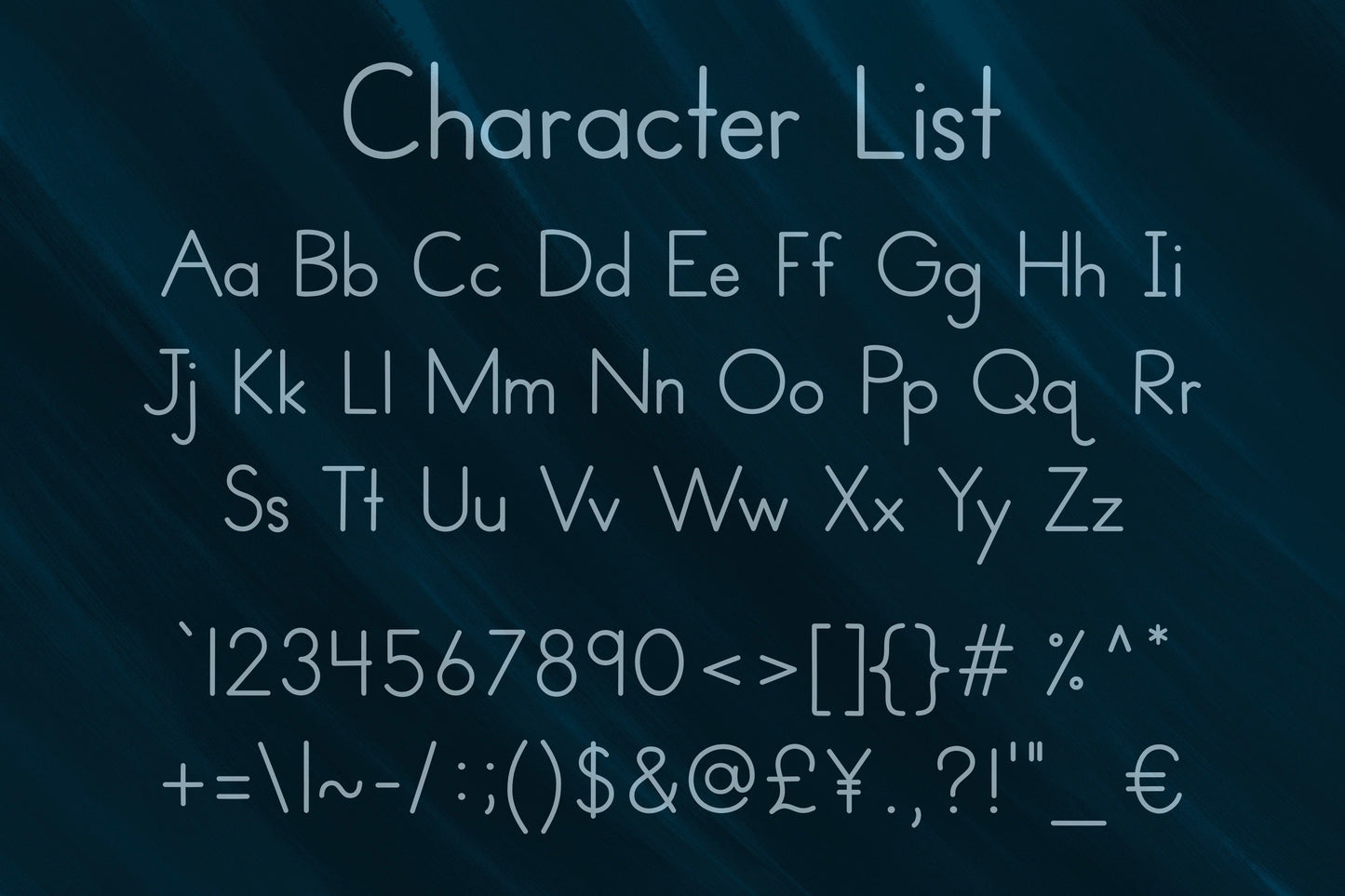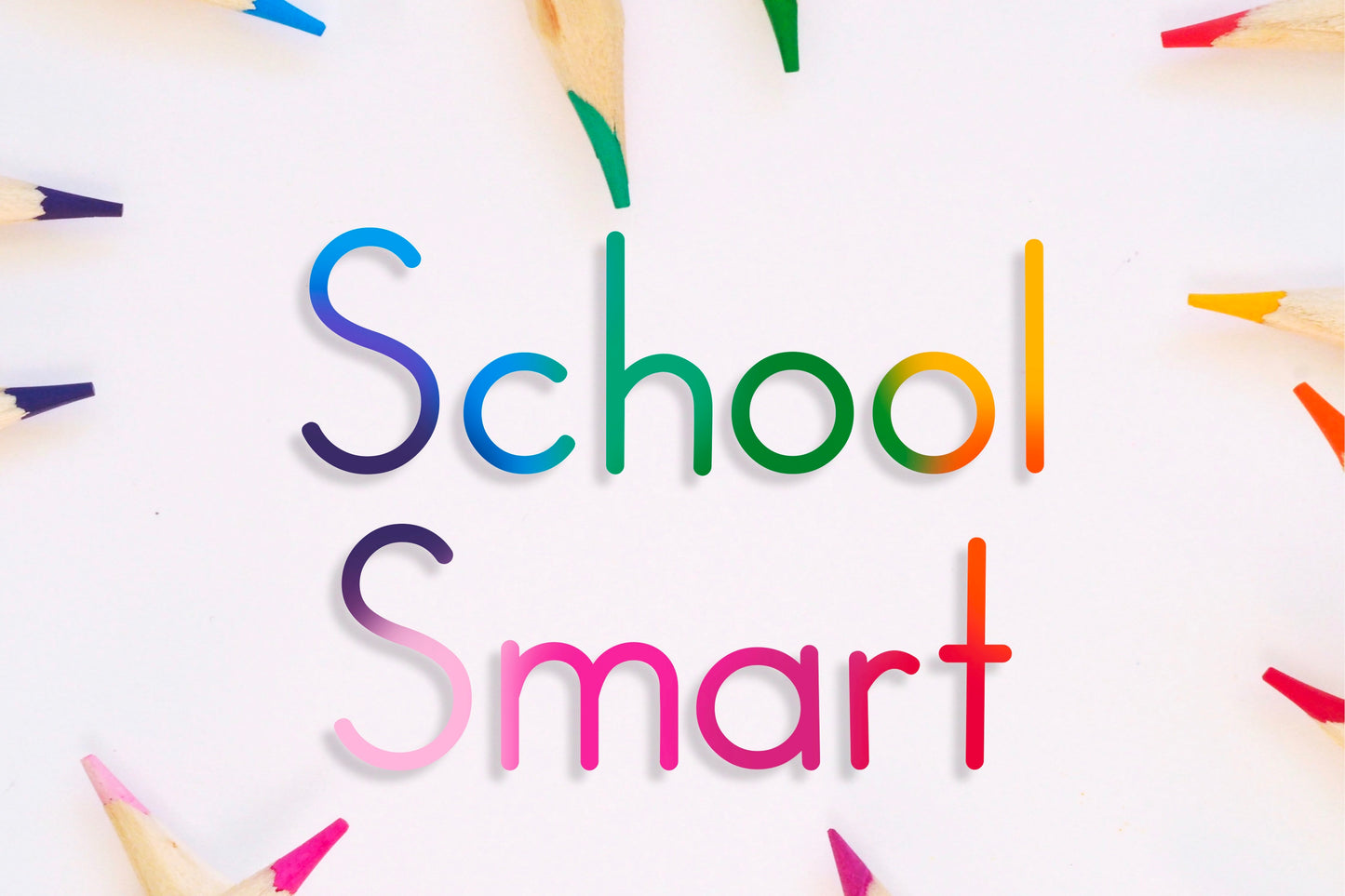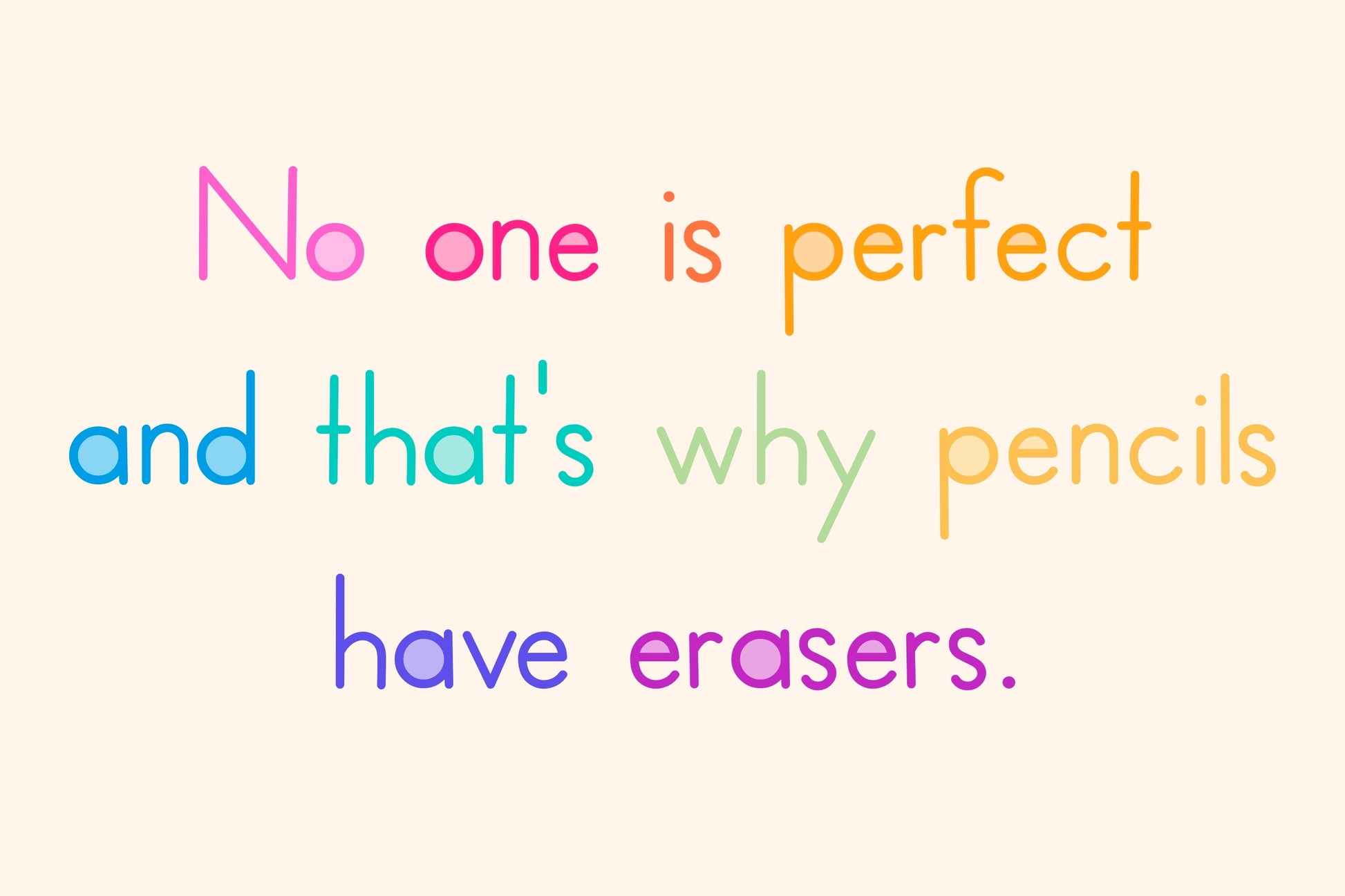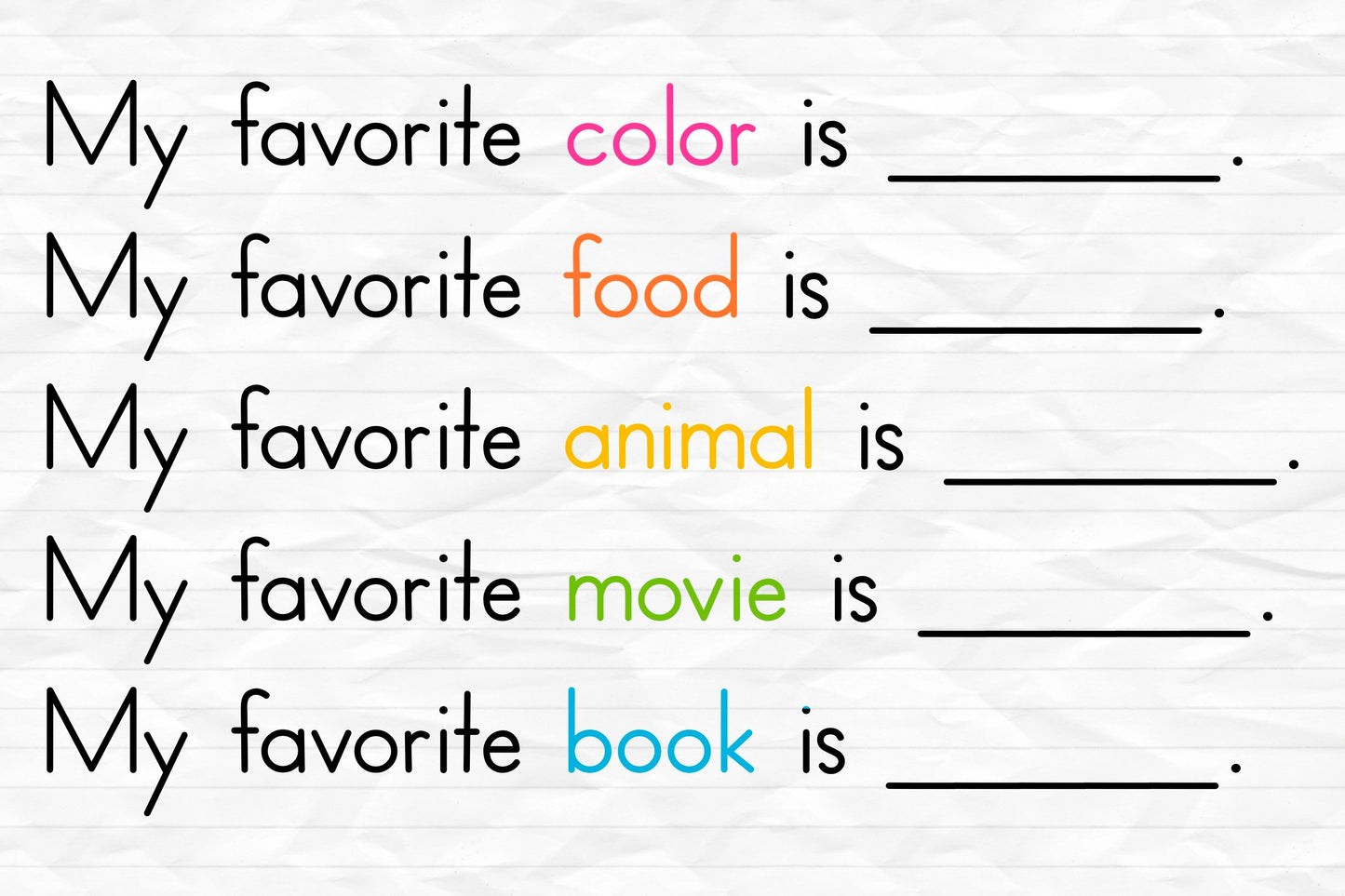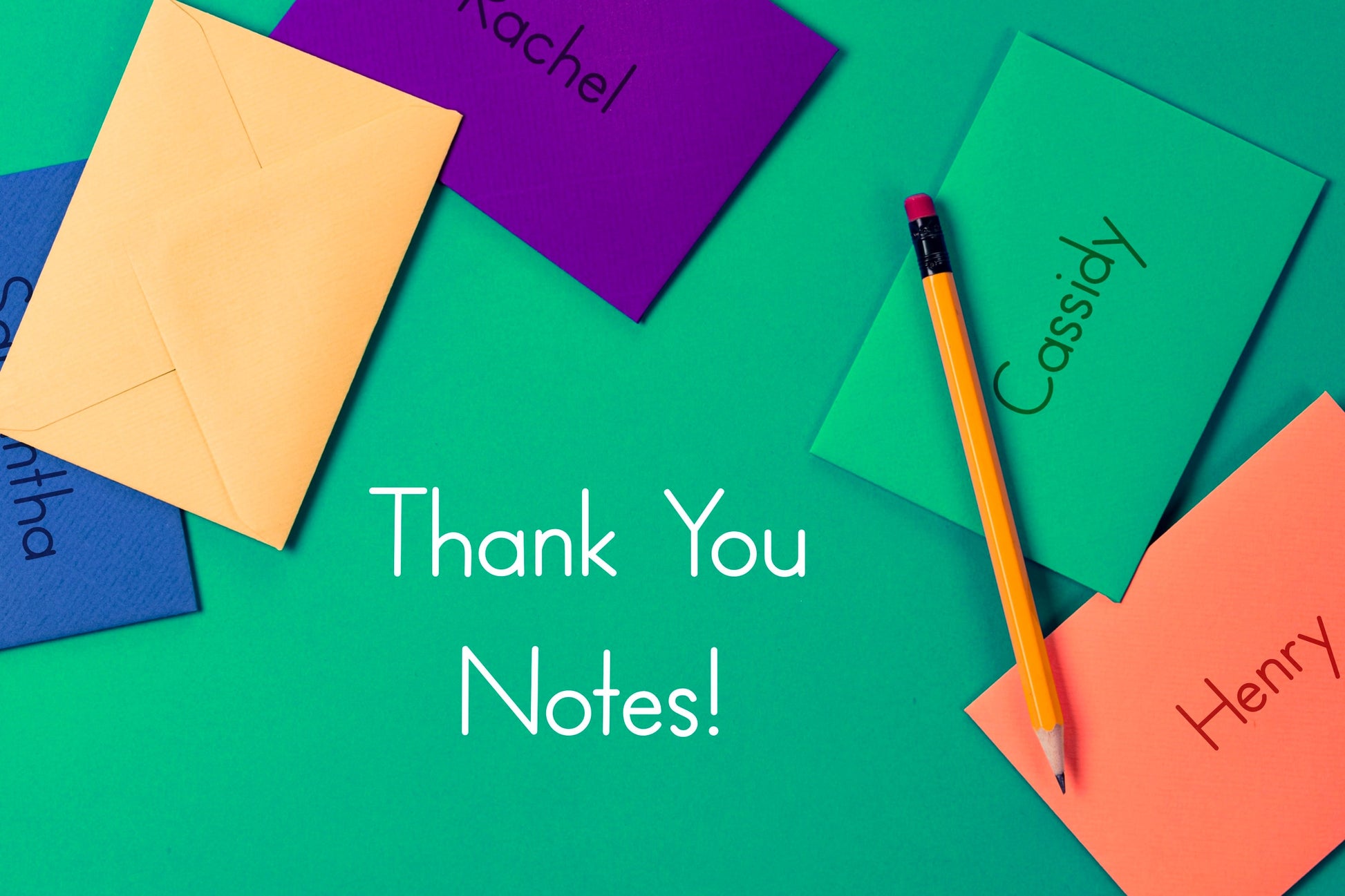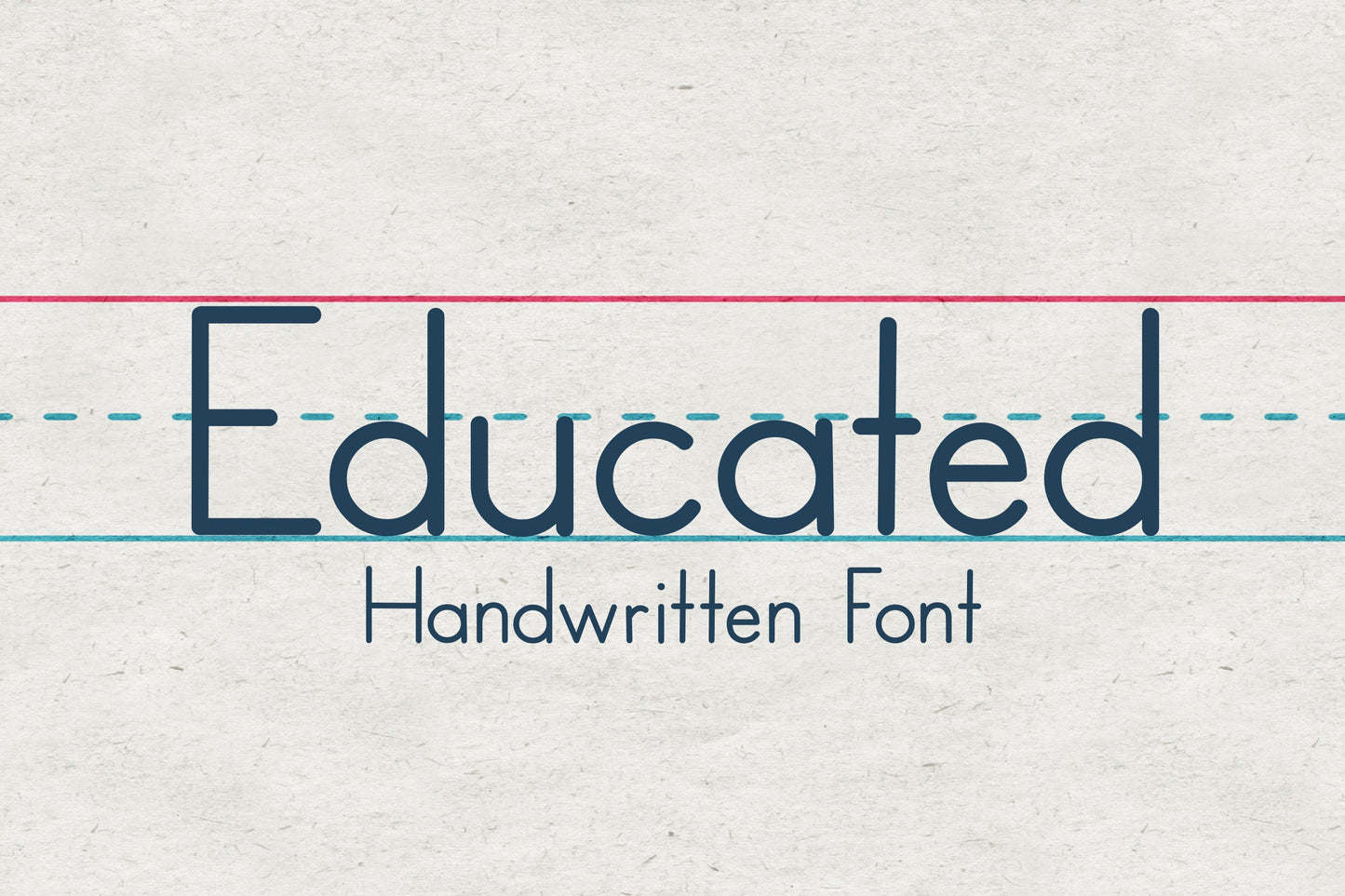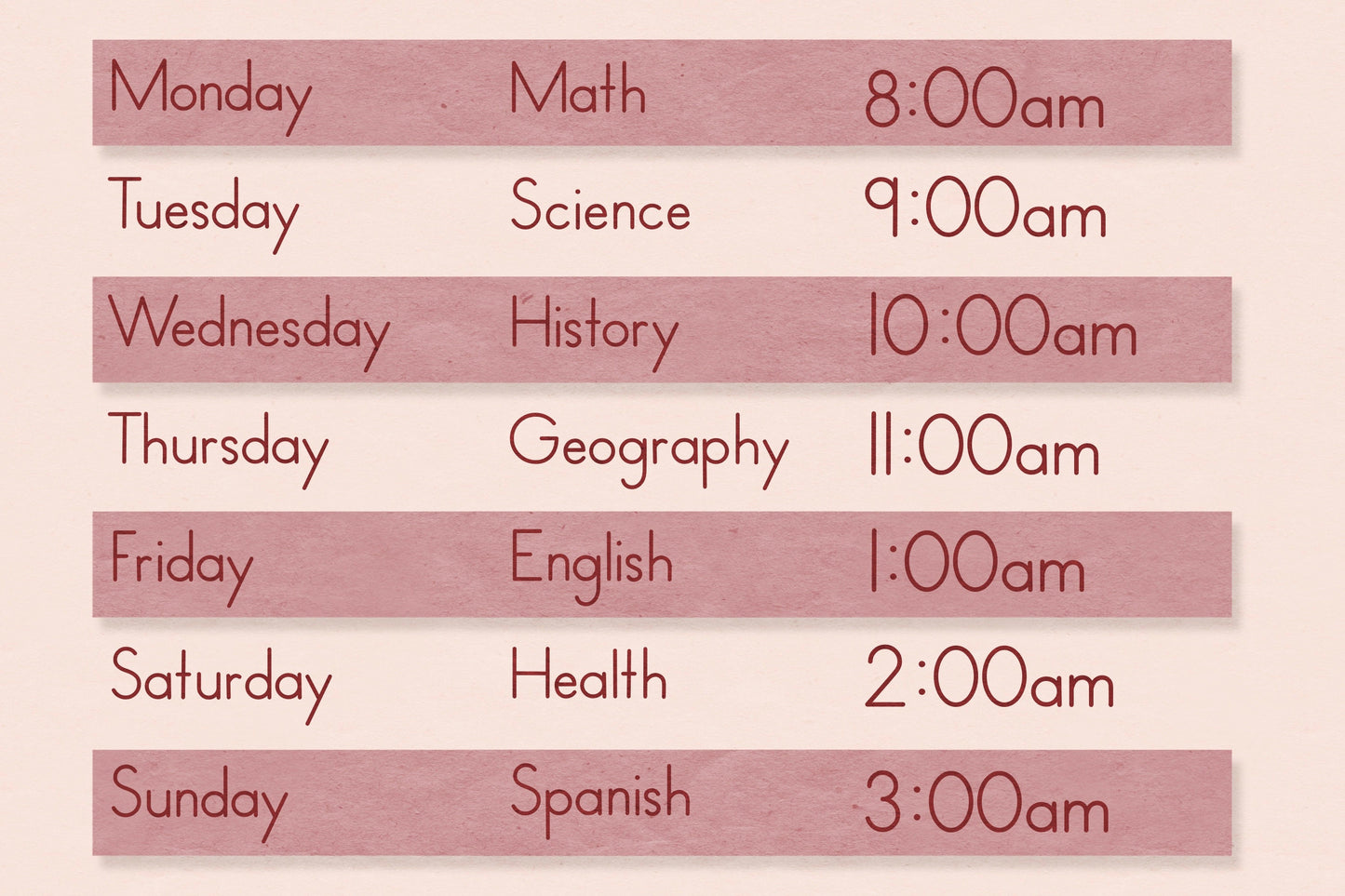
Educated Handwritten Font
This is my Educated handwritten/hand drawn font. This unique, hand lettered geometric font will add a youthful, playful, handmade touch to your design! This versatile font is great for casual, casual occasions, designs, and logos!